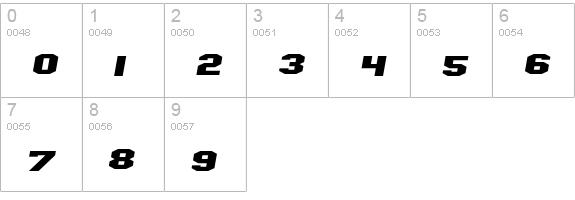
Hollywood Hills Expanded Italic is a distinctive, extended-width, italic variant in the Hollywood typeface family \xE2\x80\x94 well suited to design and typography projects.
Hollywood Hills Expanded Italic font is a sleek and stylish typeface that exudes elegance and sophistication. With its elongated and italicized design, this font brings a touch of glamour to any project it is used in. Perfect for adding a touch of Hollywood charm to your designs, Hollywood Hills Expanded Italic font is ideal for luxury branding, fashion editorials, movie posters, and more. The best part? Hollywood Hills Expanded Italic font is available for free download at FontsMarket.com. Take advantage of this stunning font to elevate your designs and make a statement with its bold and refined aesthetic. Transform your projects with Hollywood Hills Expanded Italic font today and bring a touch of Tinseltown glamour to your work.